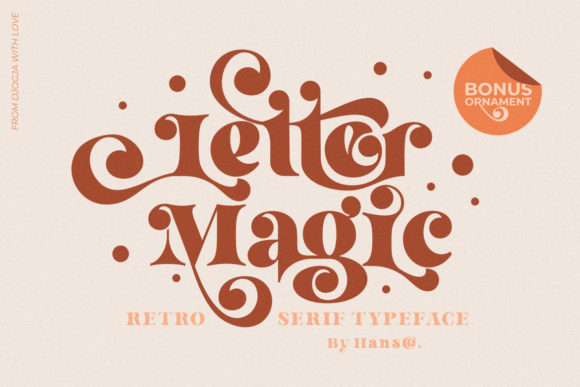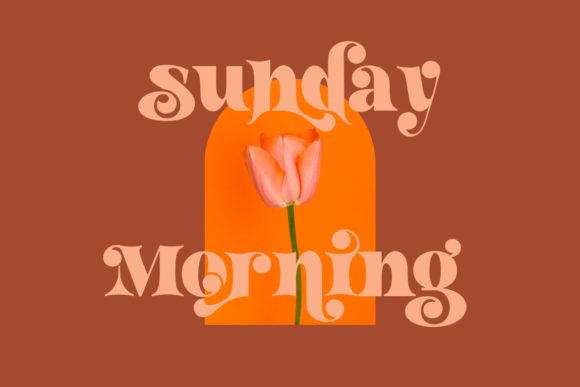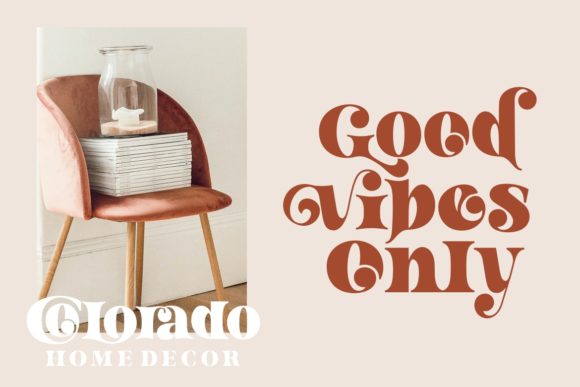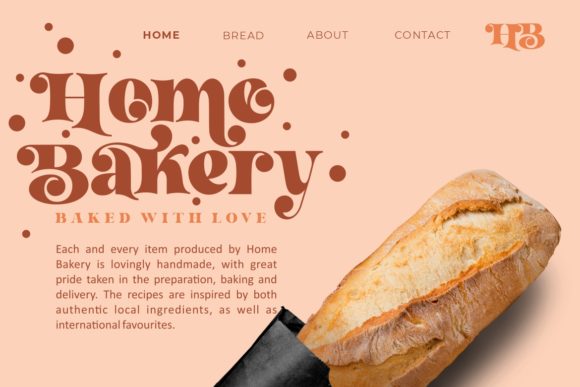
Letter Magic Font
About the Letter Magic Font
Step up your design game with Letter Magic Font, a font that exudes confidence and style. Letter Magic feels playfully nostalgic and delivers an incredible vintage aesthetic. Use this serif font to add that special retro touch to any design idea you can think of!
Masterfully designed to become a true favorite, this font has the potential to bring each of your creative ideas to the highest level!
Letter Magic’s playful vintage aesthetic makes it ideal for headlines, short text blocks on posters, branding elements for retro-themed products, or packaging that evokes a sense of nostalgia. It’s less suitable for body text or UI elements due to its decorative nature; long passages set in Letter Magic would be difficult to read.
Consider pairing Letter Magic with a clean sans-serif like Open Sans for contrast and readability in applications where both display and body copy are needed. For a more cohesive vintage feel, a simpler serif like Playfair Display could work well. Avoid pairing it with overly geometric or modern fonts, as this would clash with its playful character.
The overall personality is best described as cheerful and nostalgic, lending itself to projects that need a touch of whimsical retro charm. Think vintage toy brands, ice cream parlors, or craft breweries seeking a friendly and approachable image.
Letter Magic Font Usage Examples
Letter Magic Font Example